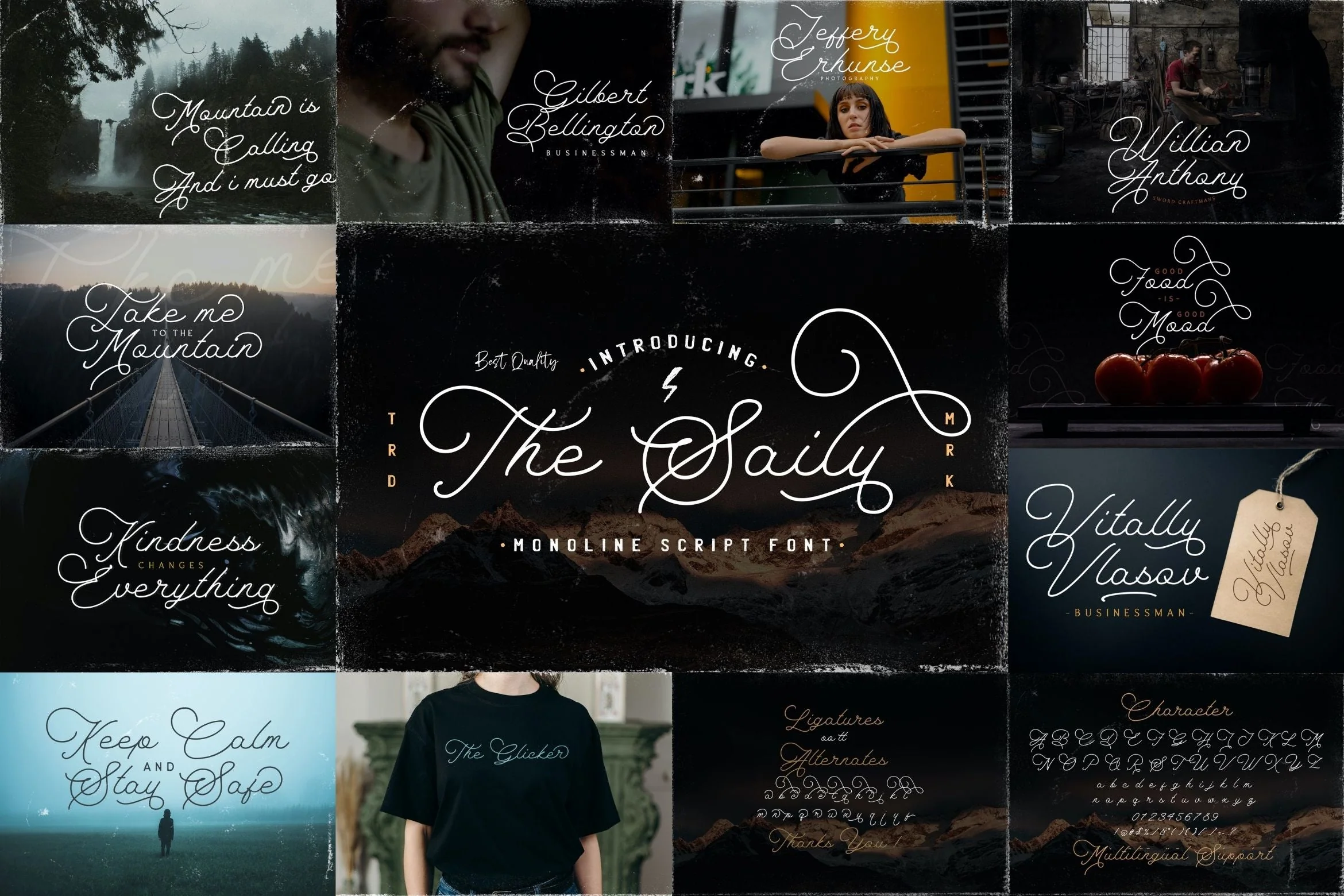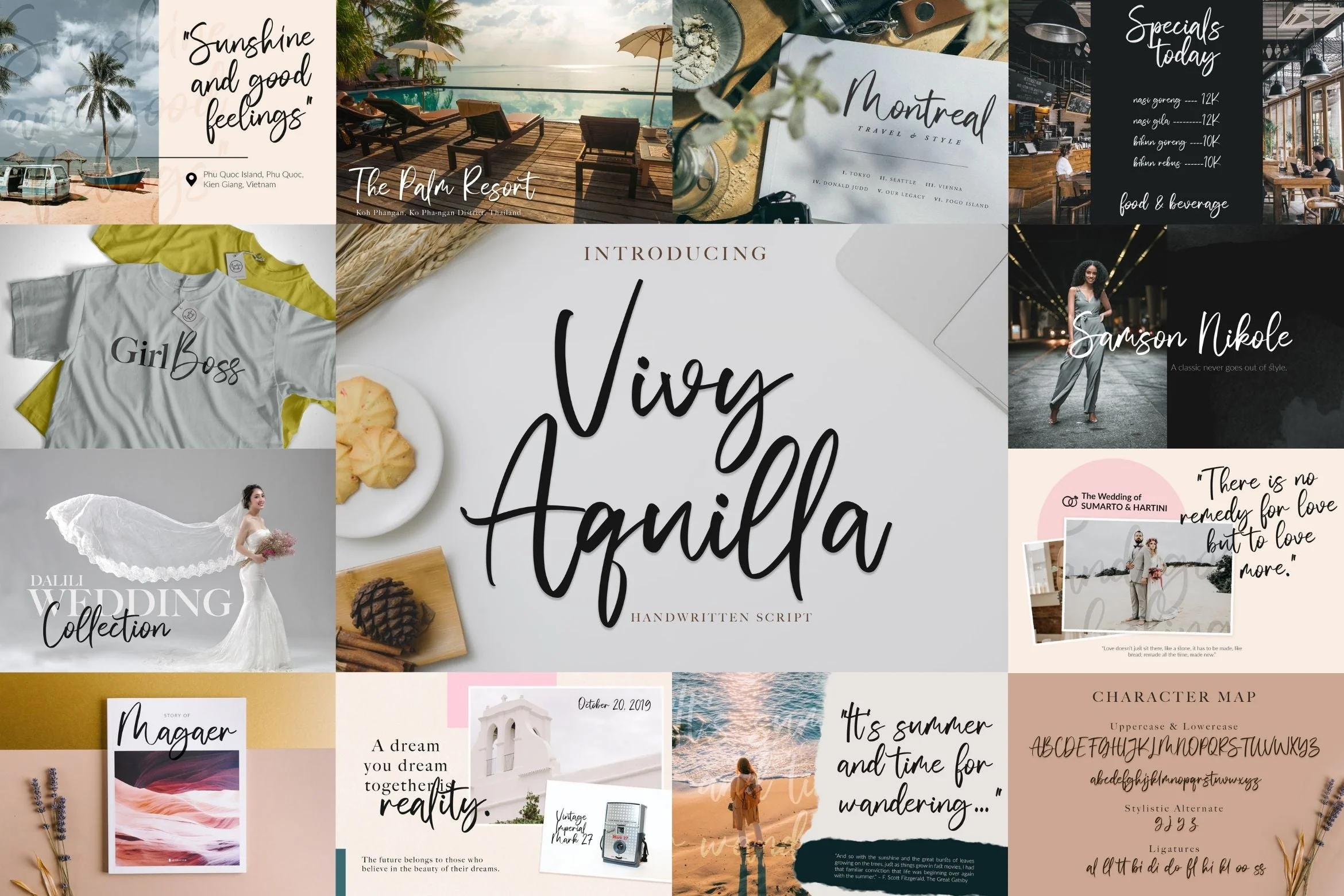
Handwritten Font Bundle Vol 16
Handwritten Font Bundle Vol 16 is a delicate, elegant and flowing handwritten font. This font bundle contains 8 high quality handwritting script font, it will look simply magical in a wide range of design projects, and also that will look particularly adept when used in logos, branding, packaging design, and much more. It has beautiful and well balanced characters and as a result, it matches a wide pool of designs. Add it to your most creative ideas and notice how it makes them come alive!
1. Santy Ehisa
2. Belinday
3. Ving Smith
4. The Gallery
5. Vivy Aquilla
6. Mystic Darling
7. Angelwine
8. The Saily